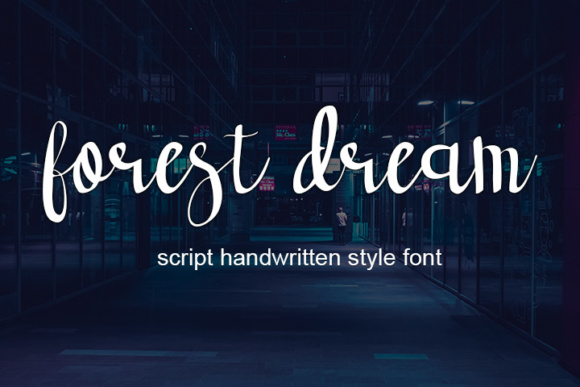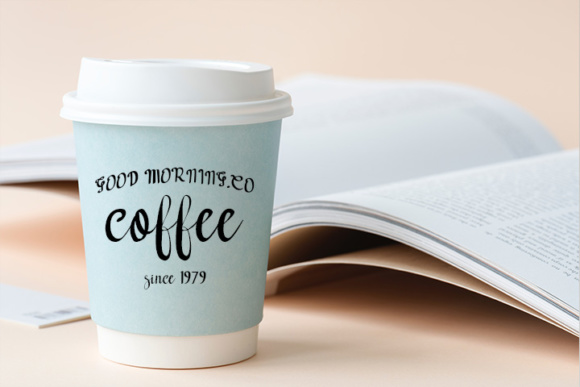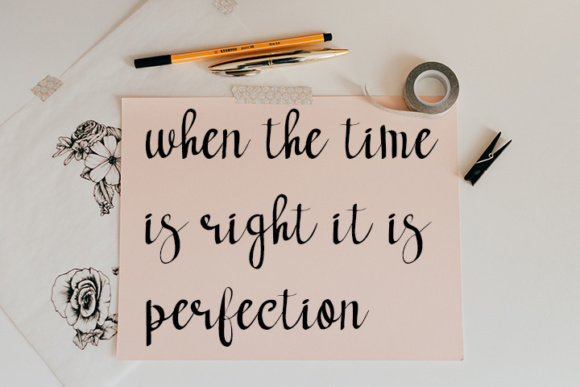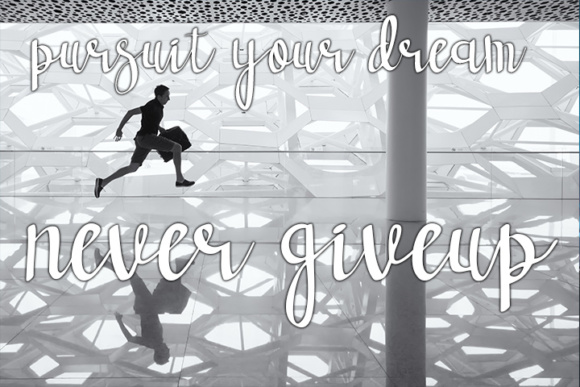
Forest Dream Font
About Forest Dream Font
The Forest Dream is a new, fresh, modern script font. It has an irregular baseline and is ideal for branding, decorating your projects, and much more!